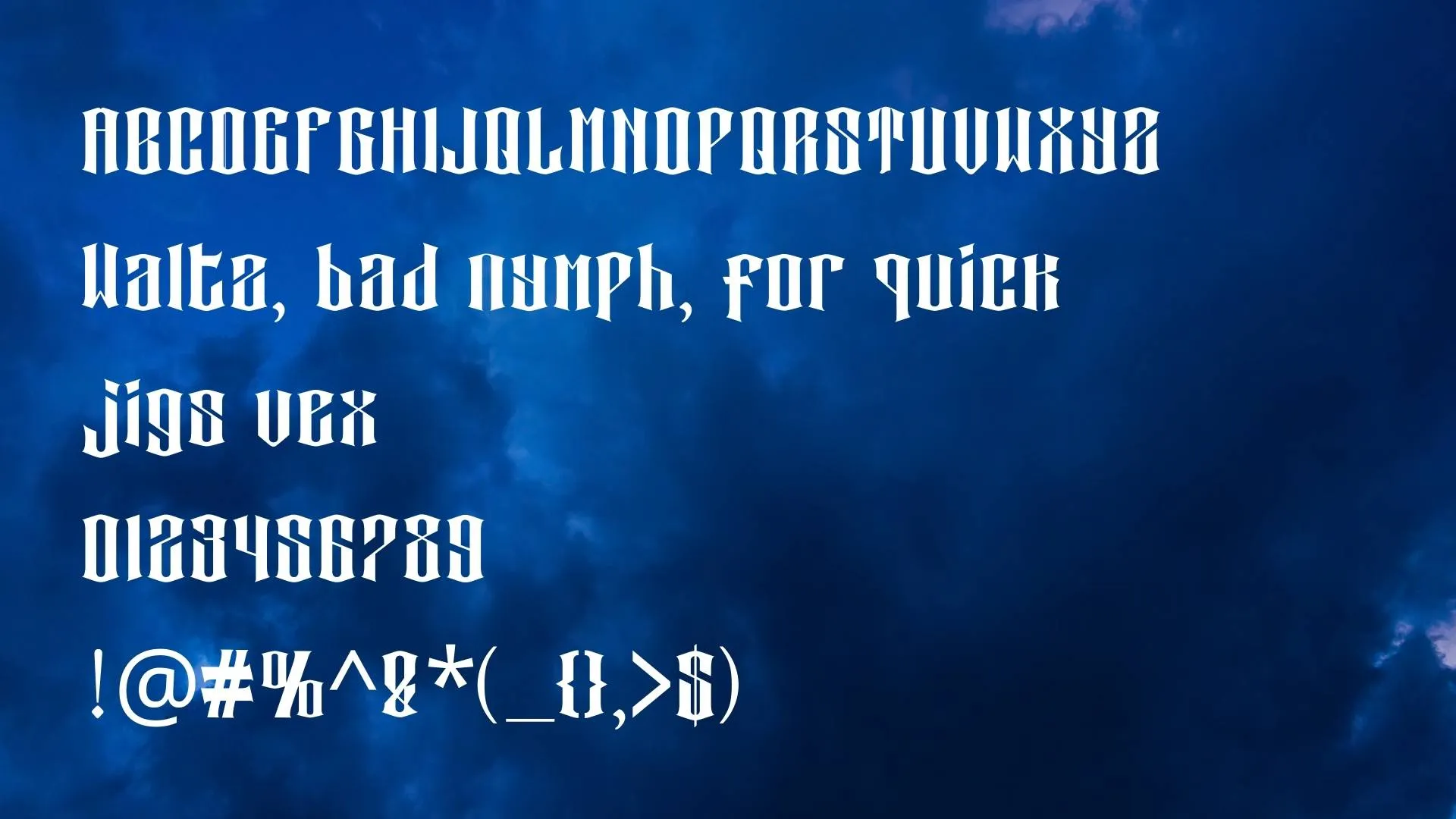
Zabur font has very bold strokes and short edges. If You want a font that is always suited for your design so this font is actually for you. This typeface was used by the majority of the designers in our project.
Zabur is an outstanding font because of its dark, and clean texture. Zabur is famous for its beautiful shape.
View of Zabur Font
| Name | Zabur Font |
| Style | Gothic |
| Creator | Ridtype |